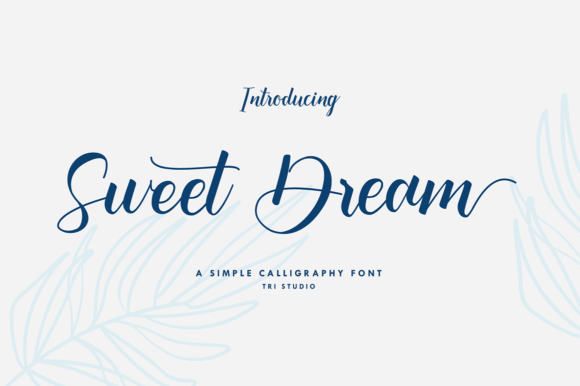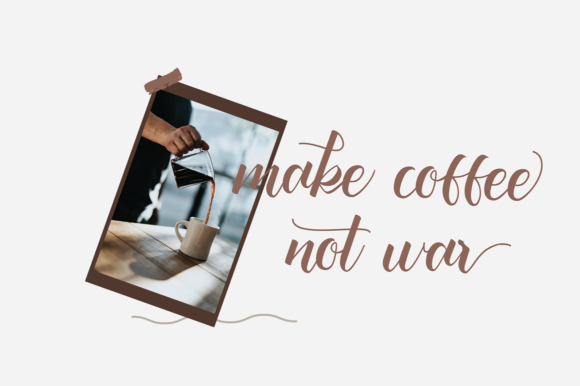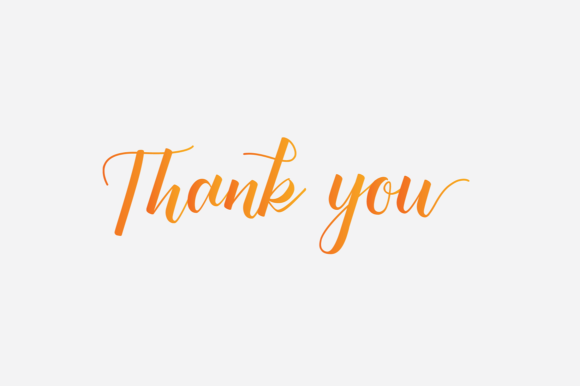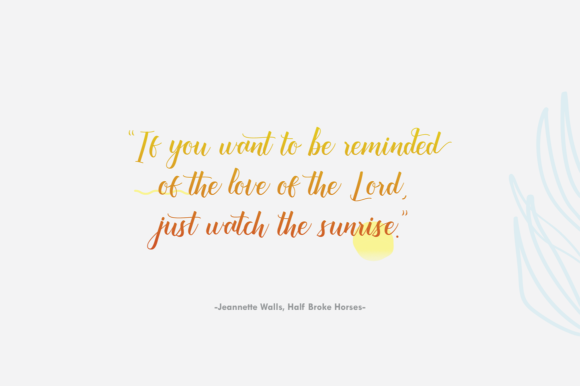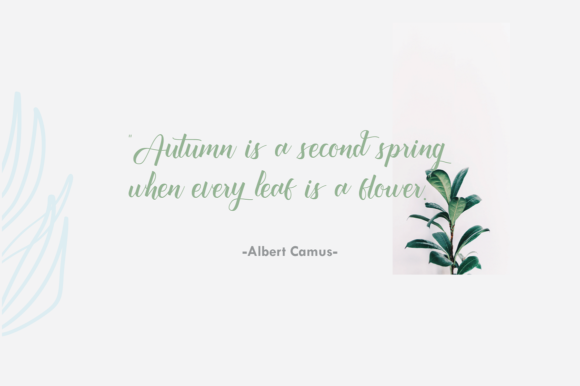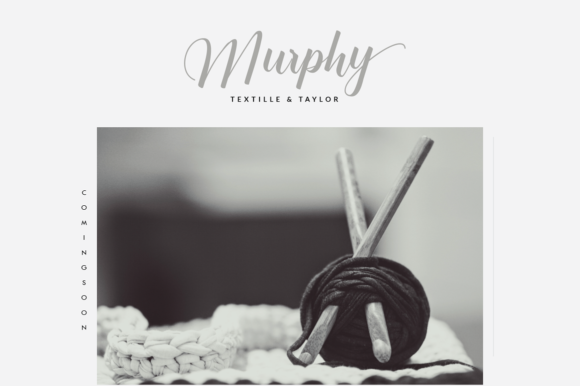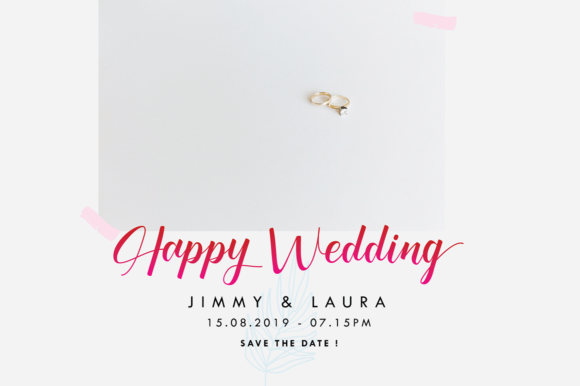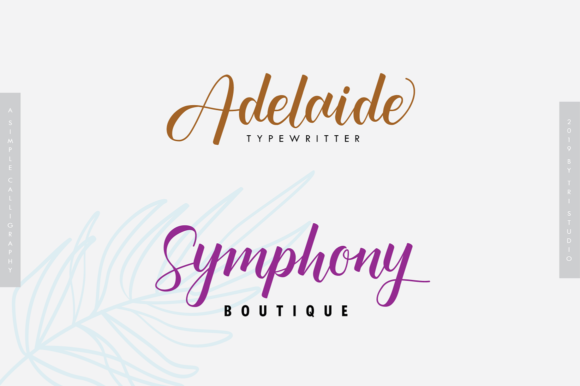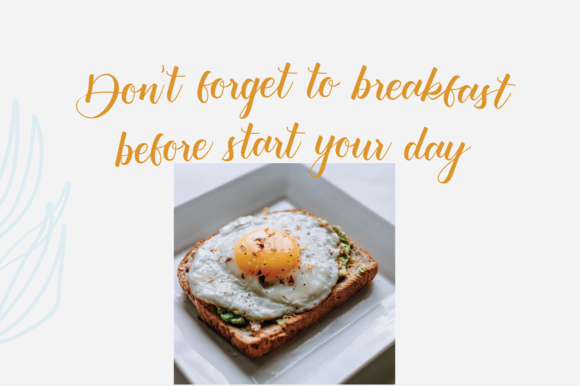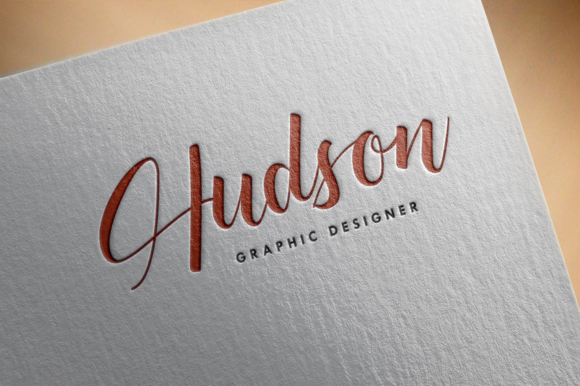
Sweet Dream Font
About Sweet Dream Font
Sweet Dream updates classic calligraphy with a modern twist. It’s the perfect font for adding a unique flavor to any design!